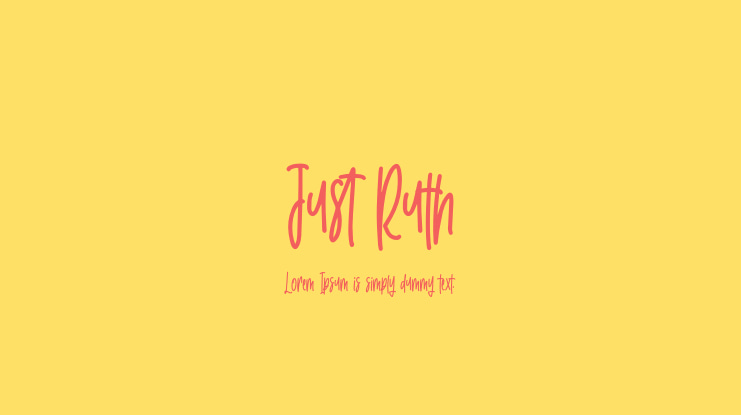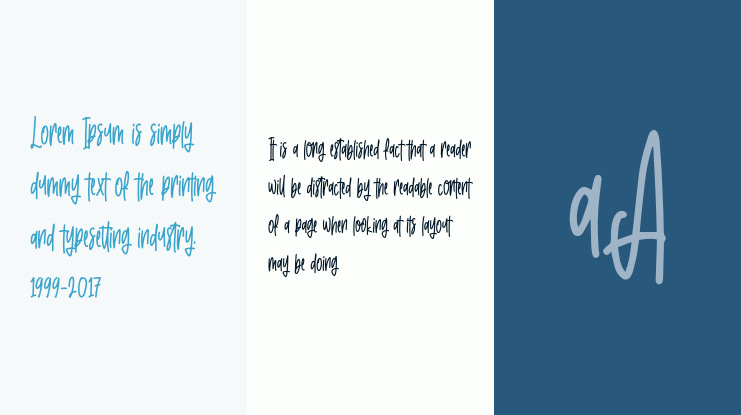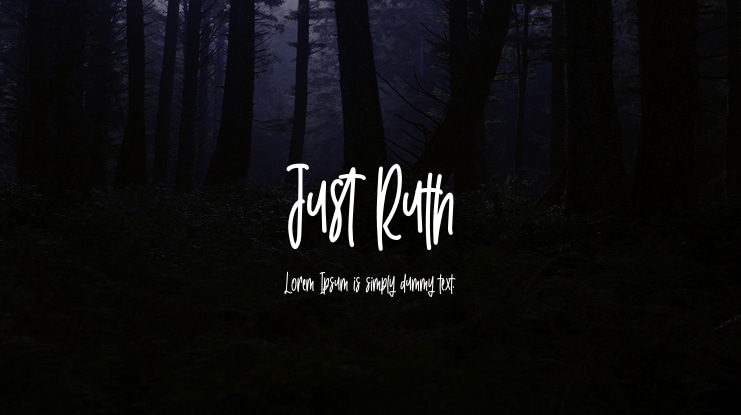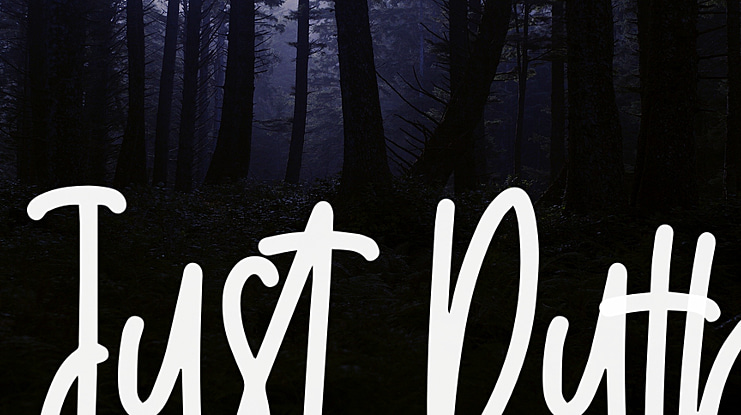
Just Ruth Font
typefactory
Just Ruth is a sweet and quirky handwritten font. Dainty and joyful, this font will be ideal for writing neat cards, album cover, quotes or any other design that may need a personalized touch!Full Version Download Here :https://typefactory.co/product/just-ruth-quirky-handwritten-font/https://www.creativefabrica.com/product/just-ruth/ref/501262/